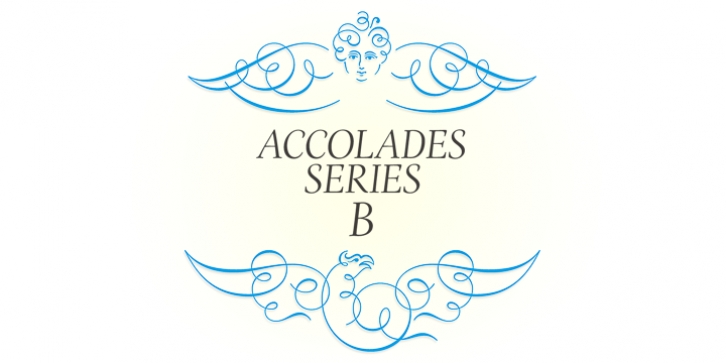
The astype series Accolades B offers the advanced designer a fine set of calligraphic swashes, swirls and figural ornaments.
Accolades B and B2 share most of the base set of ornaments but differ in some of the major shapes.
If you're looking for some good companion fonts, give Gracia and Adana a try. Every classic high contrast stroke design like Didot or Bodoni works well.